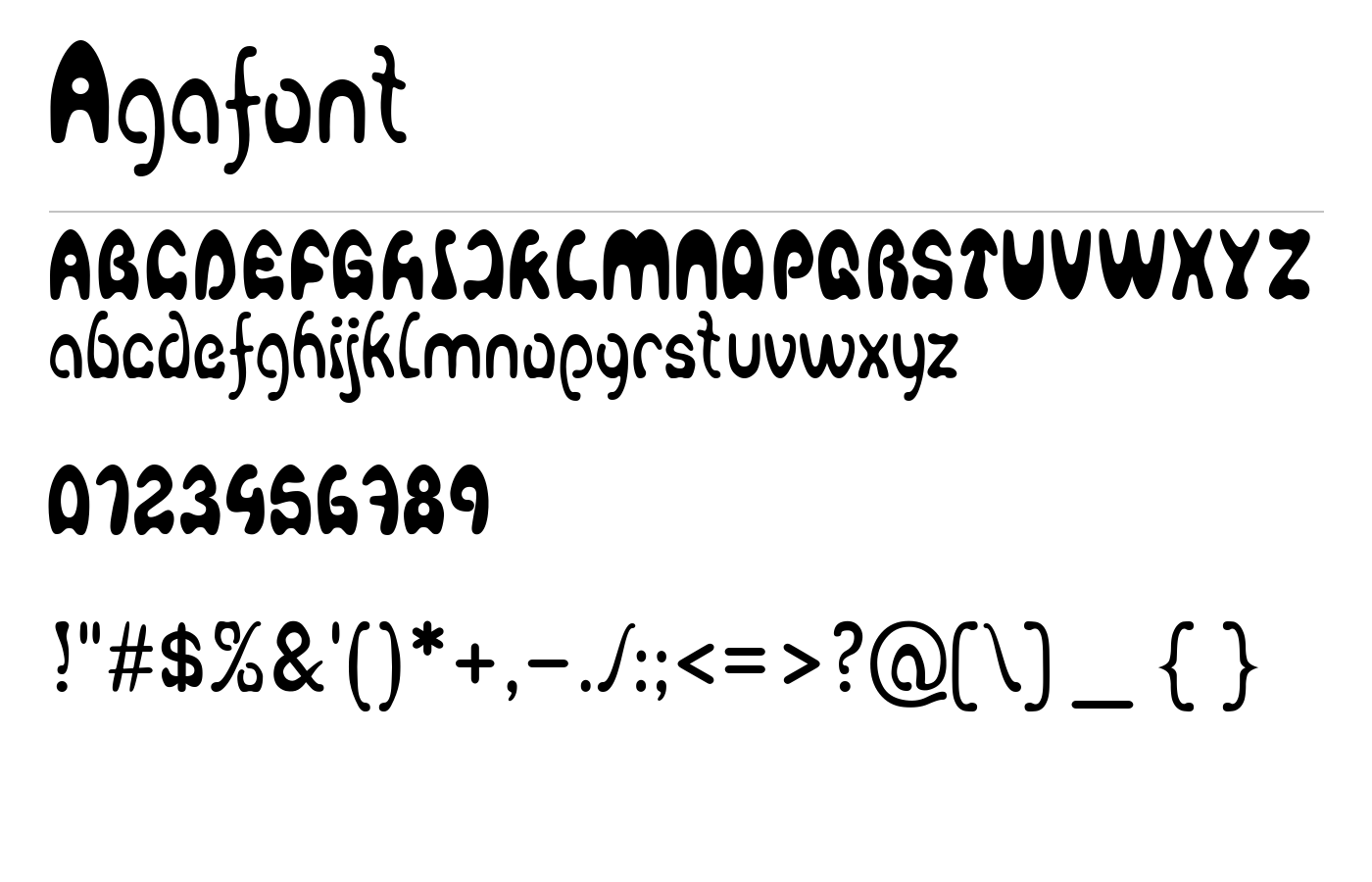
Agafont is a playful, rounded sans serif font with a bold weight and strong visual presence. Its quirky, organic shapes and varying stroke widths give it a fun, informal personality making it perfect for creative projects, children’s content, and eye-catching headlines. This font works well where a friendly, approachable vibe is desired, adding character and warmth to logos, posters, and packaging.
Agafont